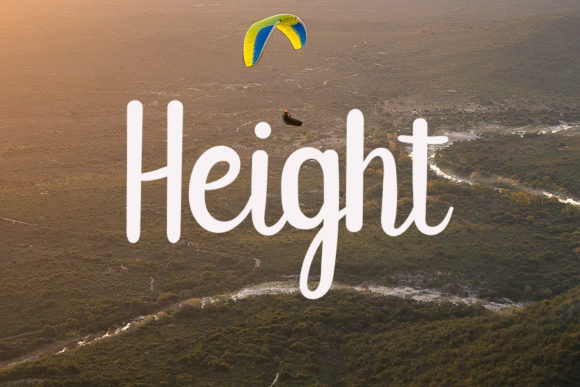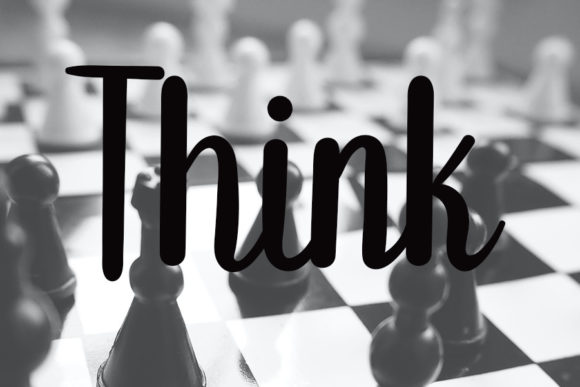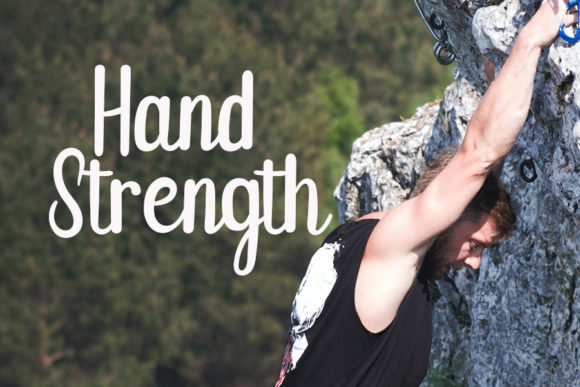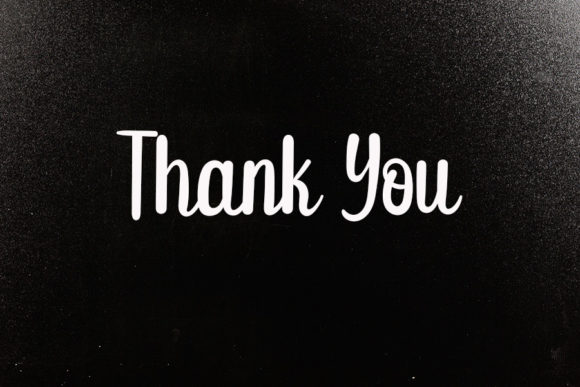
Challenge Font
About Challenge Font
Challenge is an elegant handwritten font with a contemporary atmosphere and impeccable form, inspired by timeless classic calligraphy. Not too thin and not too thick, balanced and varied, this font was designed to enhance the beauty of your projects!